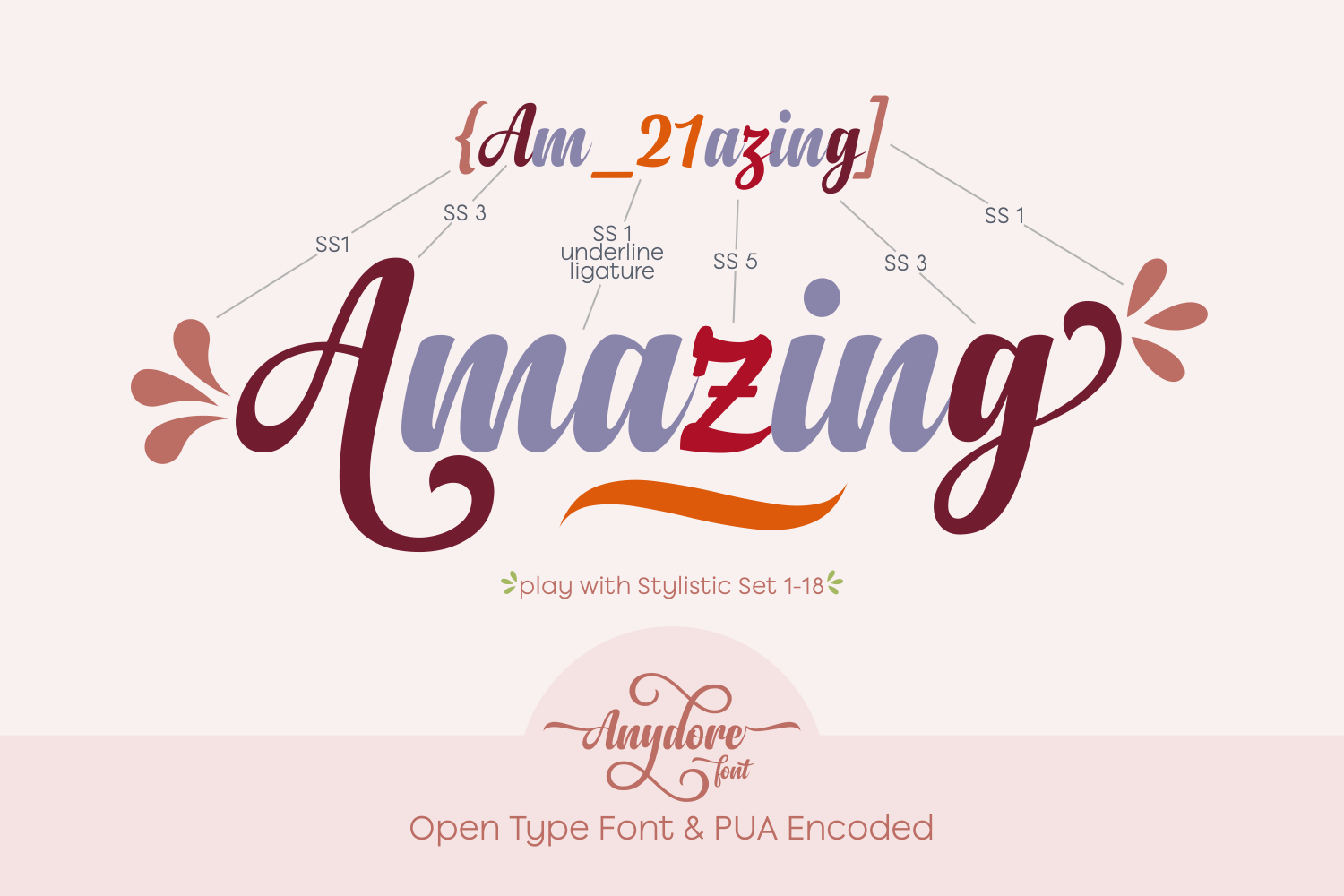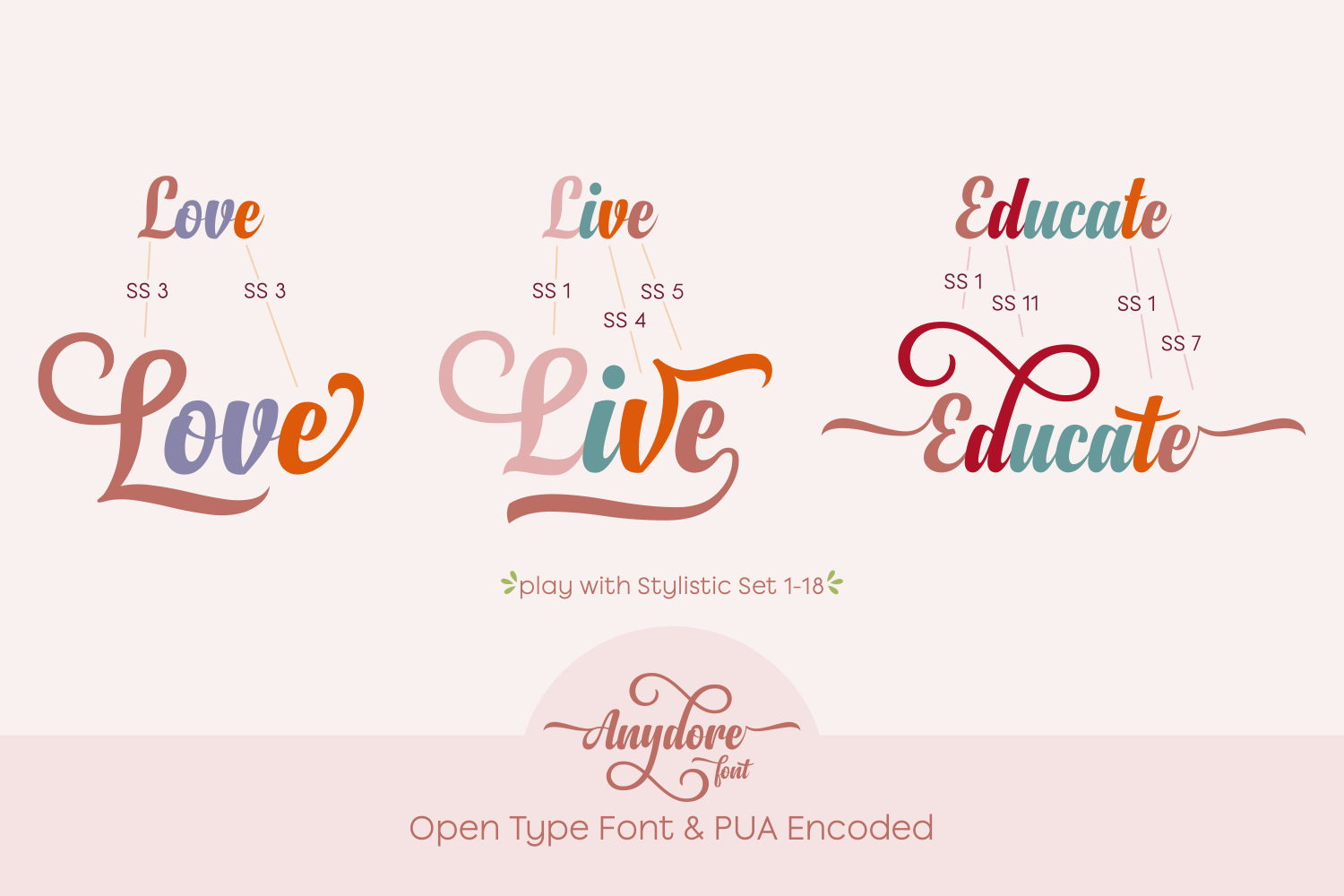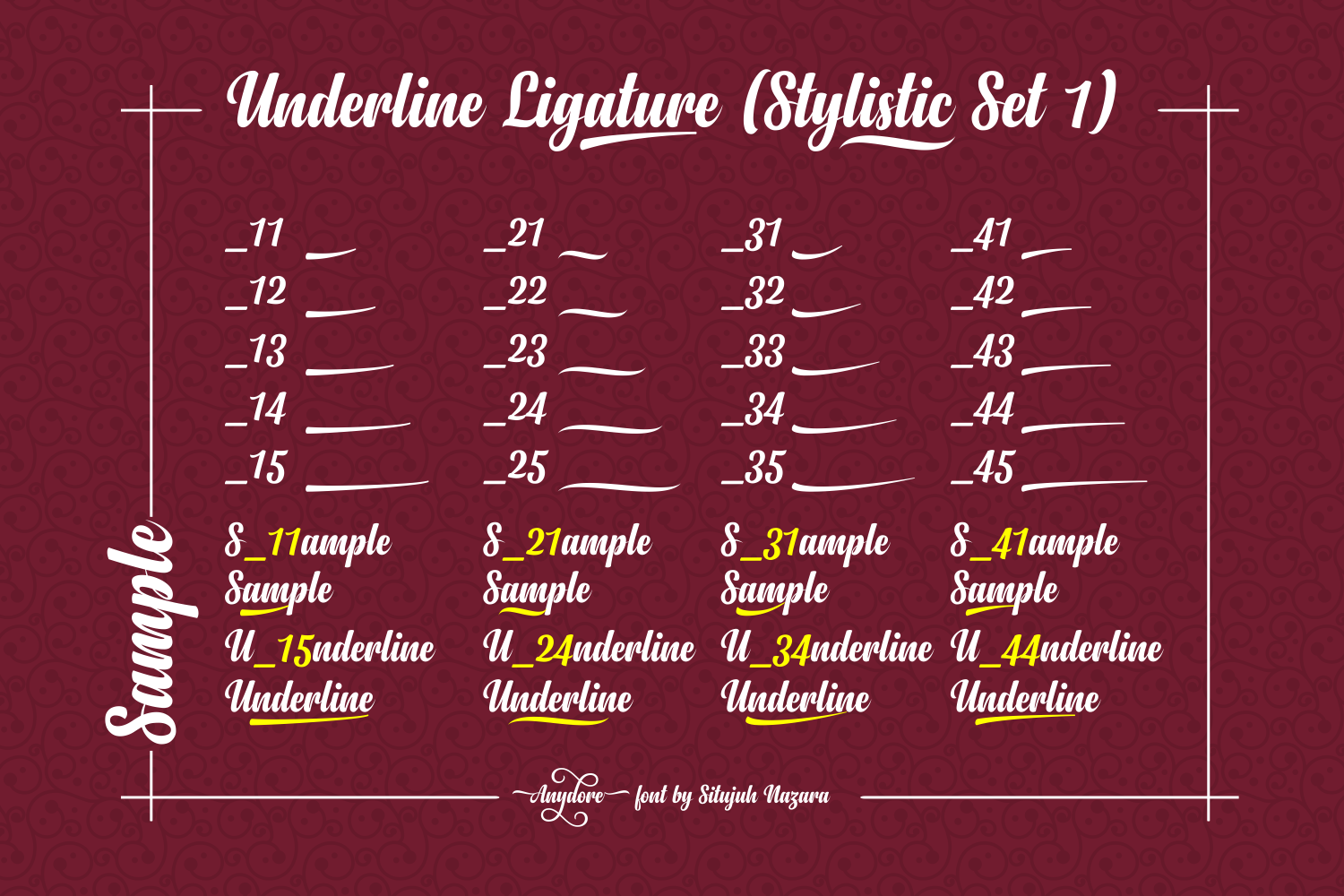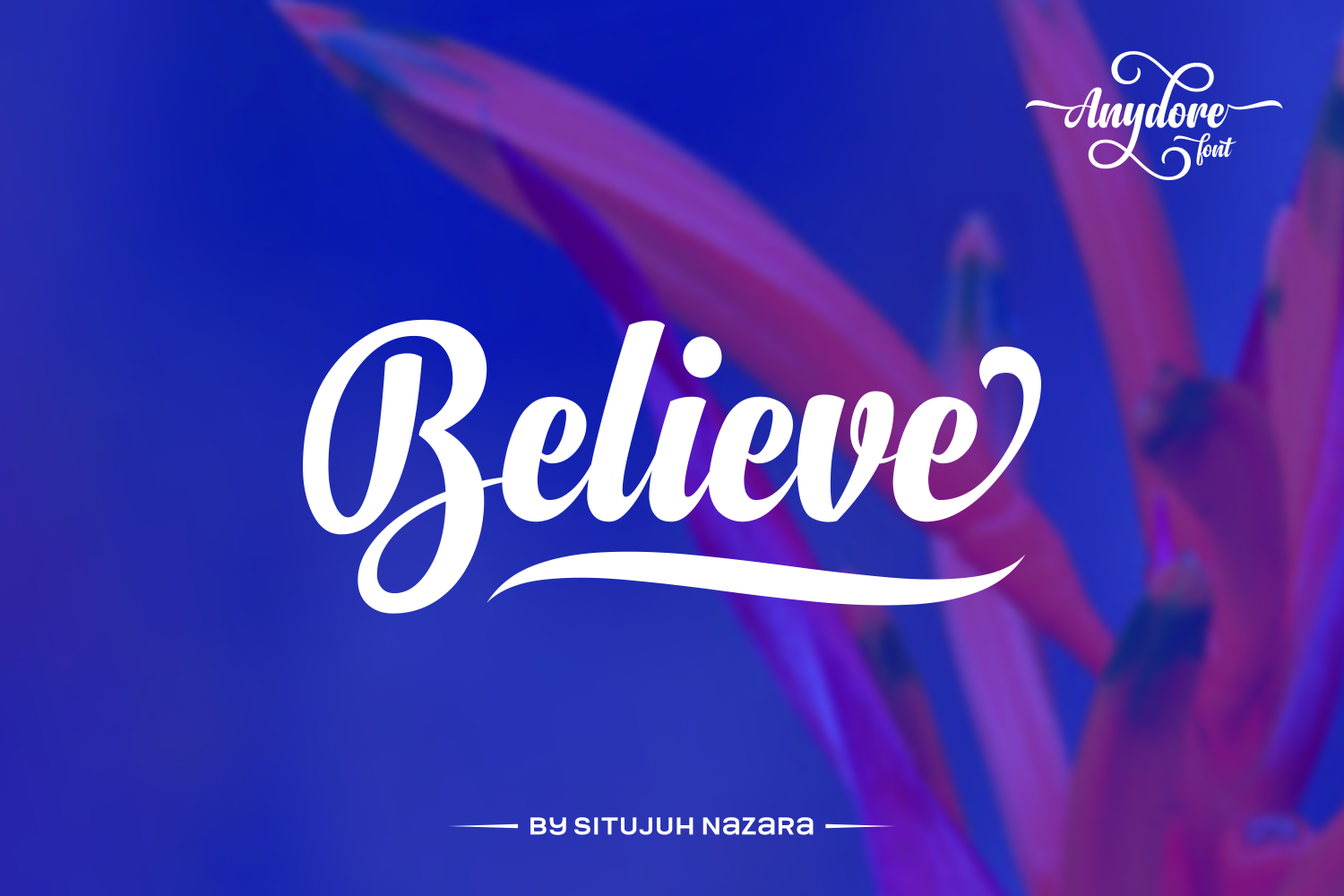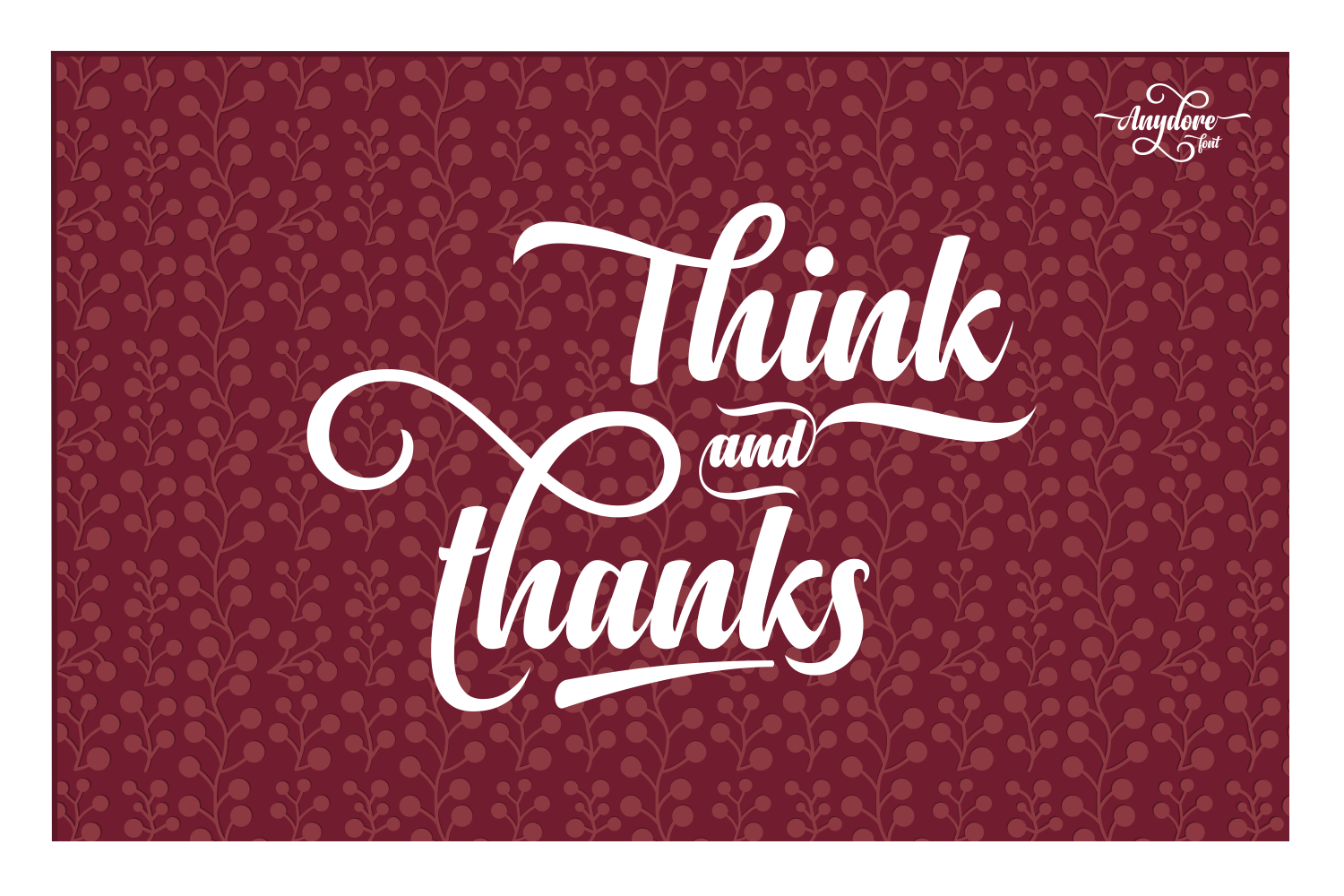
Anydore Font
About Anydore Font
The Anydore font is a strong handwritten script created by Situjuh Nazara.
This elegant type comes packed with lot’s of alternate characters that allow you to come up with unique designs each time you use it.